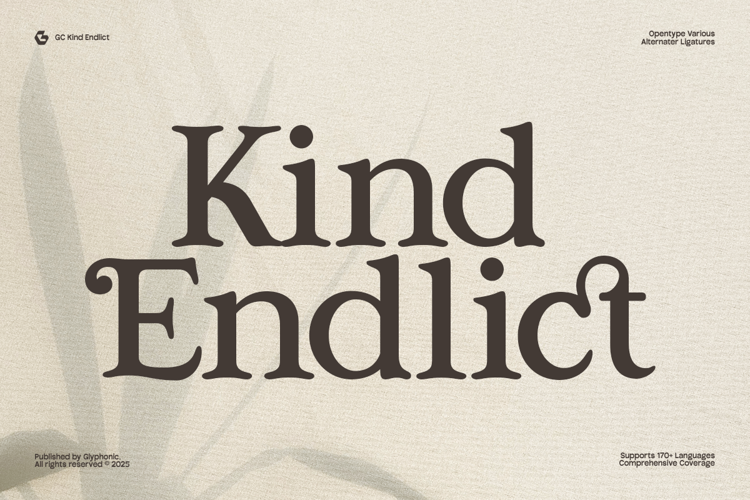
GC Kind Endlict Font
GC Kind Endlict — Elegant Retro Serif is a distinctive serif typeface crafted with a blend of vintage charm and modern refinement. With its unique curves, decorative details, and bold presence, it brings a timeless character that works beautifully across both digital and print media. Designed to embody elegance with a touch of retro artistry, it’s perfect for branding, editorial layouts, packaging, invitations, and striking visual identities.